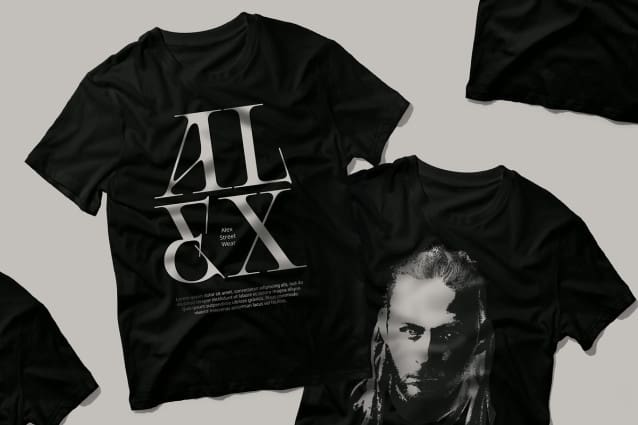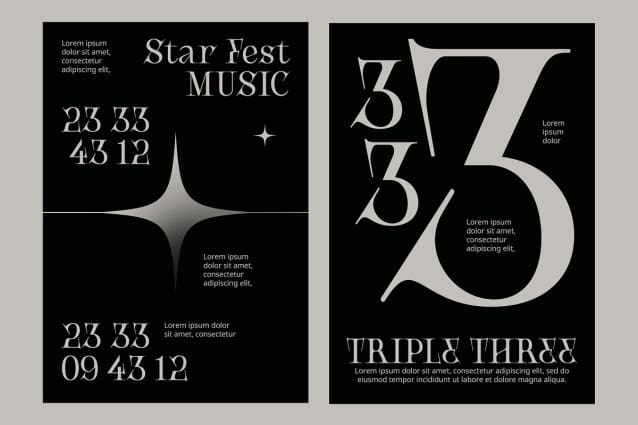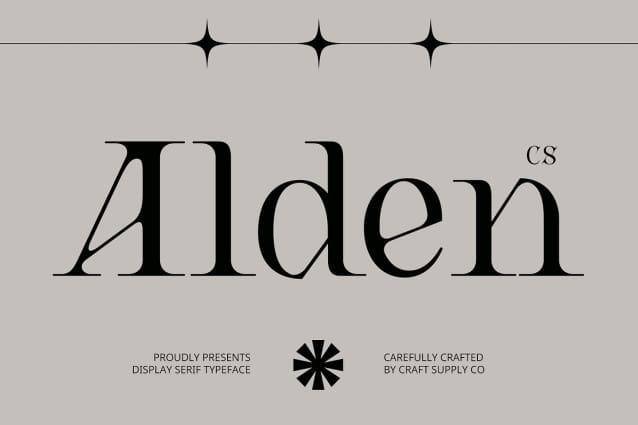
CS Alden Font
CS Alden Font is a modern display serif font that features thin, elongated, and tapered strokes, blending minimalist aesthetics with a refined sense of luxury. Its slender design offers an elegant and sophisticated appearance, perfect for projects that demand a contemporary touch.
Elegant and Sophisticated Design With its long, slender strokes and fine lines, CS Alden combines elegance with modernity. The sharp serifs and clean structure create a visually striking impression, making this font ideal for high-end and professional design applications.
Clean and Structured Visual Impression The emphasis on sharp serifs and streamlined design gives CS Alden a clean and structured look. This precision and clarity make it well-suited for luxury branding, elegant editorial work, and marketing materials that seek to merge classical charm with contemporary flair.
Versatile for Professional and Modern Projects CS Alden excels in design projects that require a professional and modern touch. Its elegant aesthetic is perfect for luxury branding, sophisticated editorial layouts, and marketing materials, providing a seamless blend of classic and contemporary elements.